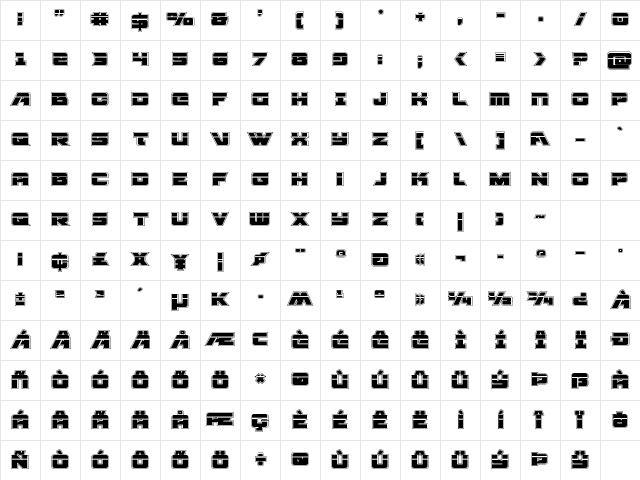
Aircruiser Academy Laser Regular
Aircruiser Academy Laser Family
Design Context for Aircruiser Academy Laser
Aircruiser Academy Laser is a composed and adaptable typeface that performs quietly and consistently across a wide range of design contexts.